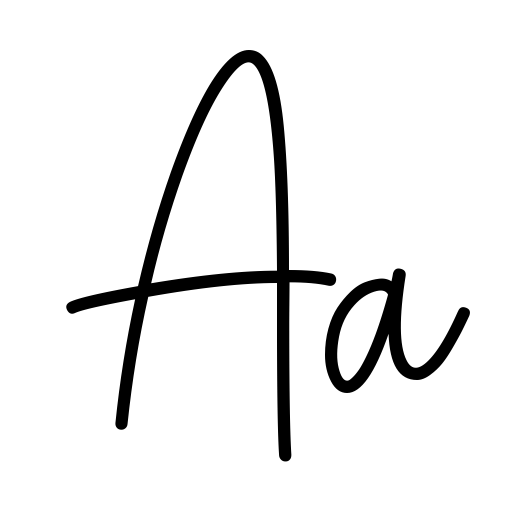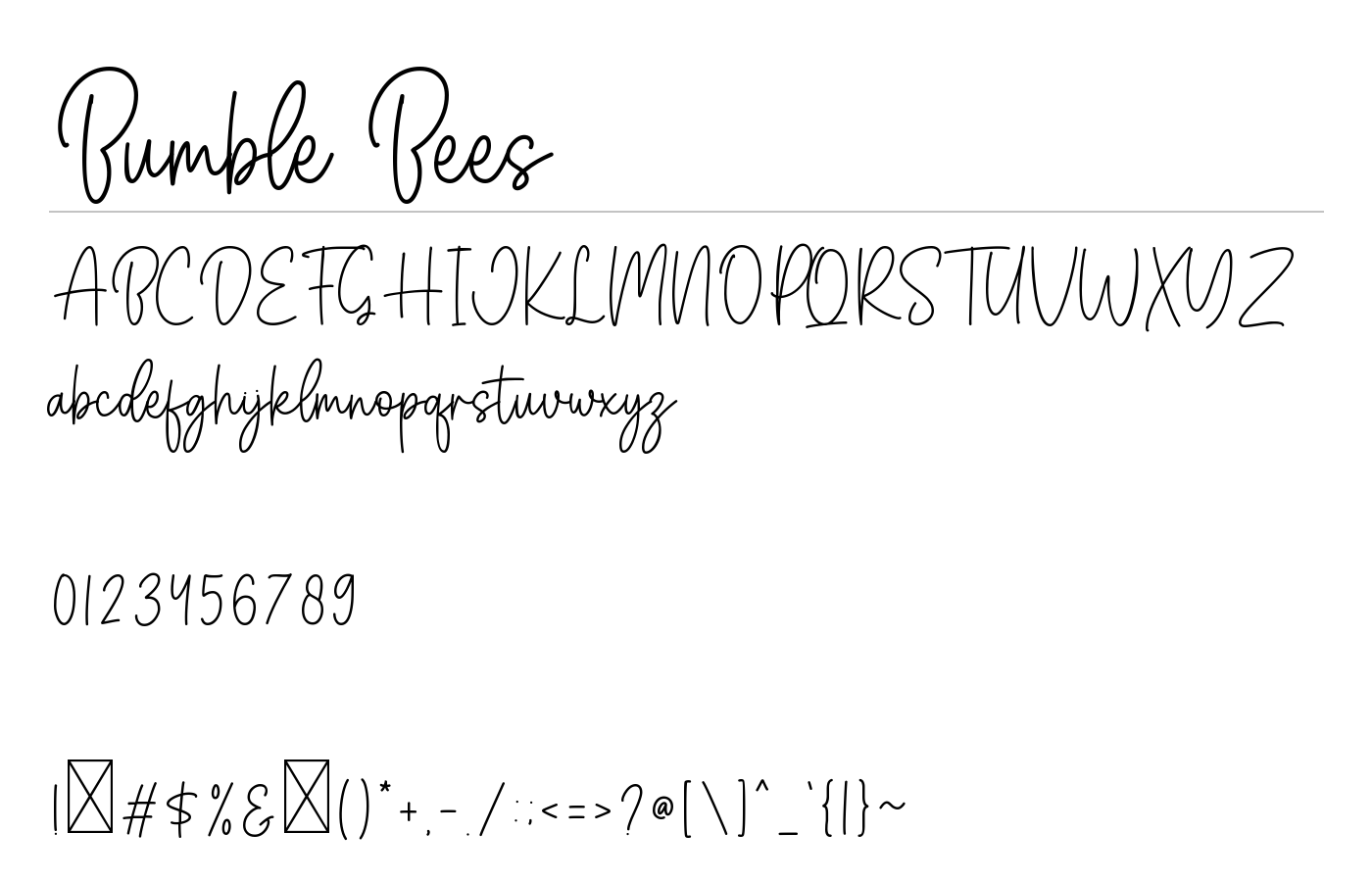
Bumble Bees is a delicate, handwritten script font with a light weight and tall, slender letterforms that create an airy and playful feel. Its smooth, flowing strokes and casual style make it perfect for adding a personal, friendly touch to invitations, branding, and creative projects that seek a warm, approachable vibe. This font works best in headlines, logos, and decorative text where its charming character can shine.
Bumble Bees Font
About Bumble Bees Font